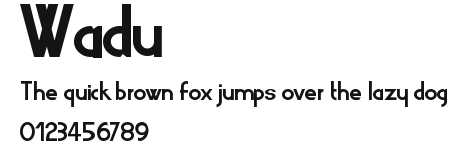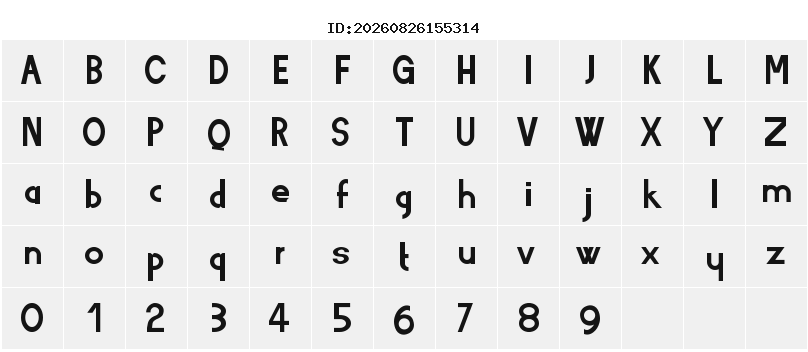
About Wadu .ttf
Wadu .ttf is a modern, elegant sans-serif font designed for ultimate readability and visual harmony. Perfect for branding, headlines, web design, and print materials.